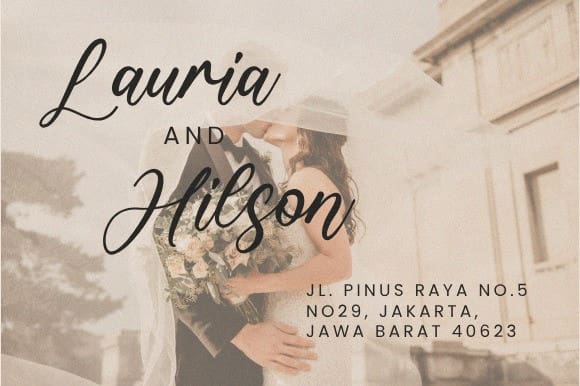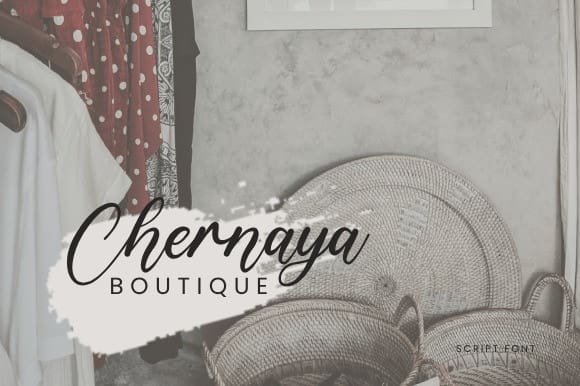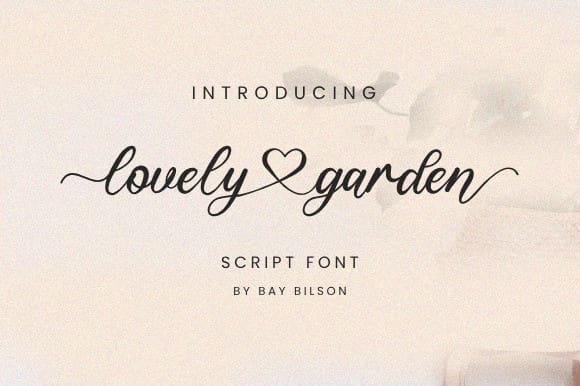
Lovely Garden Font
Lovely Garden Font is a charming script font that captivates with its unique and elegant design. This font exudes a sense of charm and sophistication, making it the perfect choice for projects that want to convey a romantic aesthetic. The Lovely Garden script font features gracefully flowing lines and carefully crafted curves, giving each character a sense of organic fluidity. The letterforms are highly detailed, with subtle strokes and swirls that add a touch of playfulness and femininity. The overall font design evokes a feeling of handcrafted beauty, reminiscent of handwritten calligraphy.